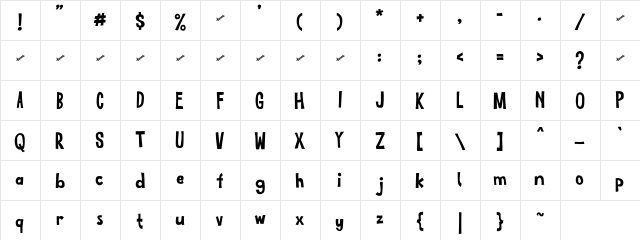
SKREEBLE Regular
| Designer | alexatype |
Design Context for SKREEBLE Typeface
SKREEBLE offers clean, dependable letterforms without strong stylistic allegiance, making it a practical choice for designers who need flexibility.